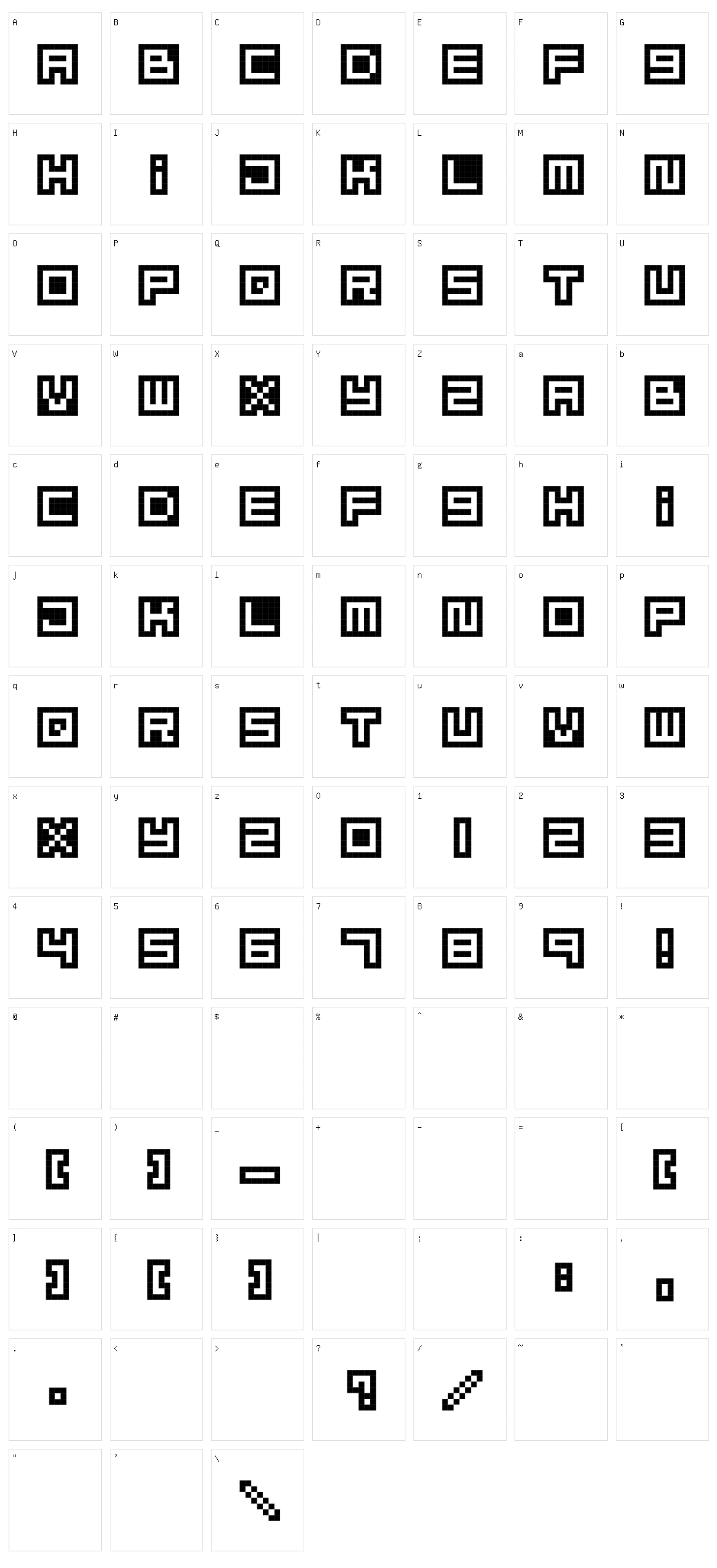
Mizu Font Alphabet
Designed by: sk89q
MizuFontAlphabet is designed by Mizu and sk89q. Typeface © 2004 The
Pixel font best at 6 points.
This font was originally designed by Mizu, and new characters added
by sk89q. This is a pixel font, best at 6pt, and useful for design.